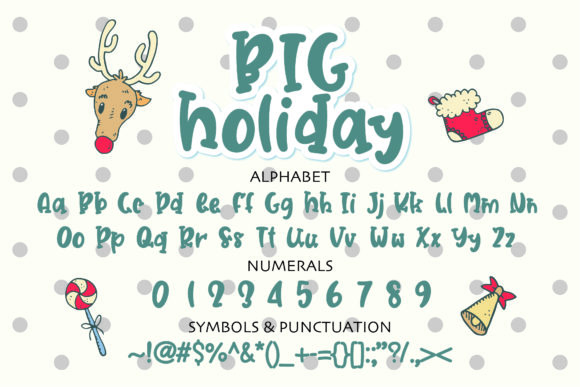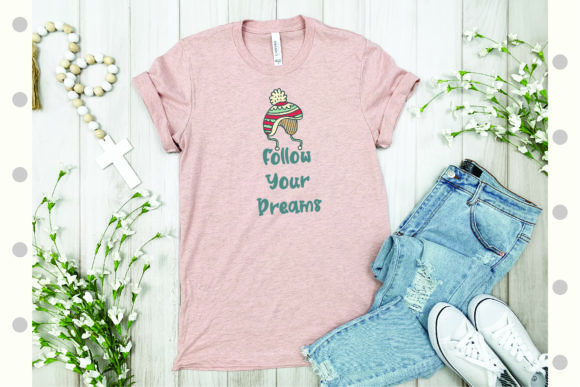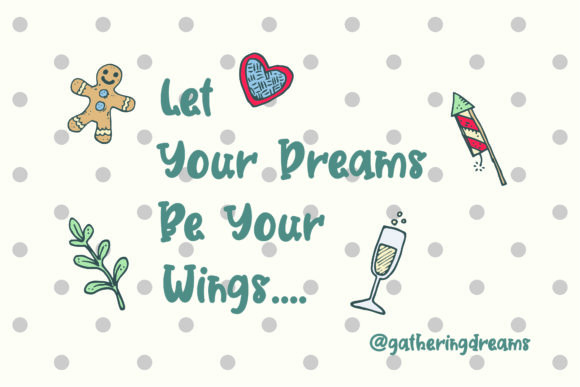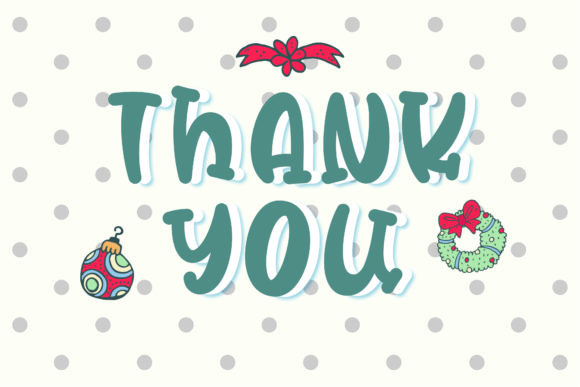
The Magic of Big Holiday Font: A Designer’s Delight
I’ll never forget the moment I stumbled upon the Big Holiday font while working on a festive Christmas project for a client. I was on a tight deadline, and my design just wasn’t coming together. The font I was using was too formal, too boring, and just not festive enough. That’s when I discovered Big Holiday, a round-lettered and chic handwritten font that instantly elevated my design. In this article, I’ll share my experience with Big Holiday, its features, and how to make the most of it in your designs.
An Honest Review of Big Holiday Font
What I Love About Big Holiday ✨
• ✅ Playful and authentic feel that’s perfect for children’s activities or school projects
• ✅ Round lettering that adds a touch of whimsy and fun to any design
• ✅ Works well with both digital and print designs
• ⚠️ Limited use of uppercase letters, which might not be ideal for all designs
• ⚠️ Some users might find the font too casual or playful for certain projects
The Designer Inspiration Behind Big Holiday
Big Holiday was designed with the goal of creating a playful, yet authentic font that’s perfect for children’s activities and school projects. The designer wanted to create a font that would evoke a sense of fun and creativity, while still being legible and easy to read. The result is a font that’s both whimsical and sophisticated, making it a great addition to any designer’s toolkit.
Q: Is Big Holiday font suitable for digital designs?
A: Yes, Big Holiday font works well with digital designs, including social media graphics, email headers, and website text.
Q: Can I use Big Holiday font for print designs?
A: Absolutely! Big Holiday font is highly legible and works well with print designs, including brochures, posters, and flyers.